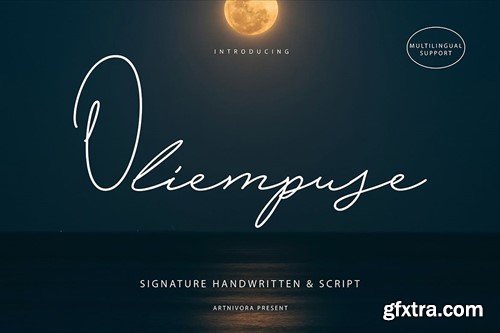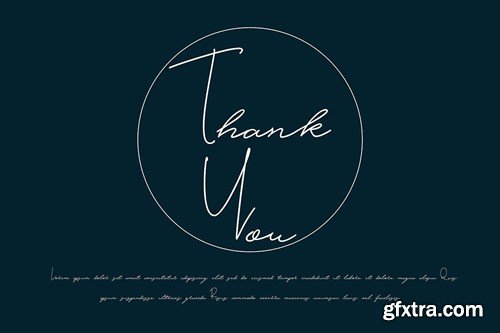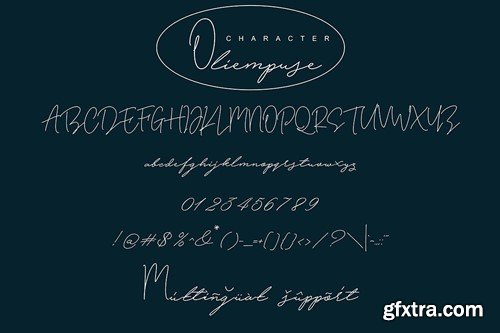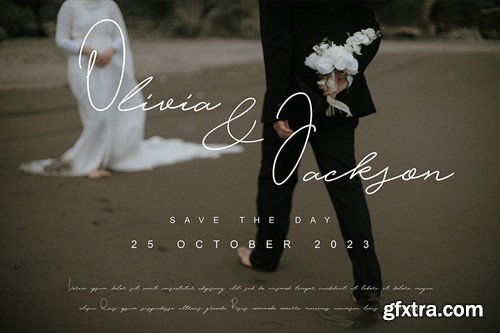
Oliempuse - Signature Font
Introducing Oliempuse, a simple and signature font. So perfect for you who needs a typeface for logo designs, magazine, social media, brochure, and many more. Features Files Includes Thank you for checking and i hope you enjoy it.